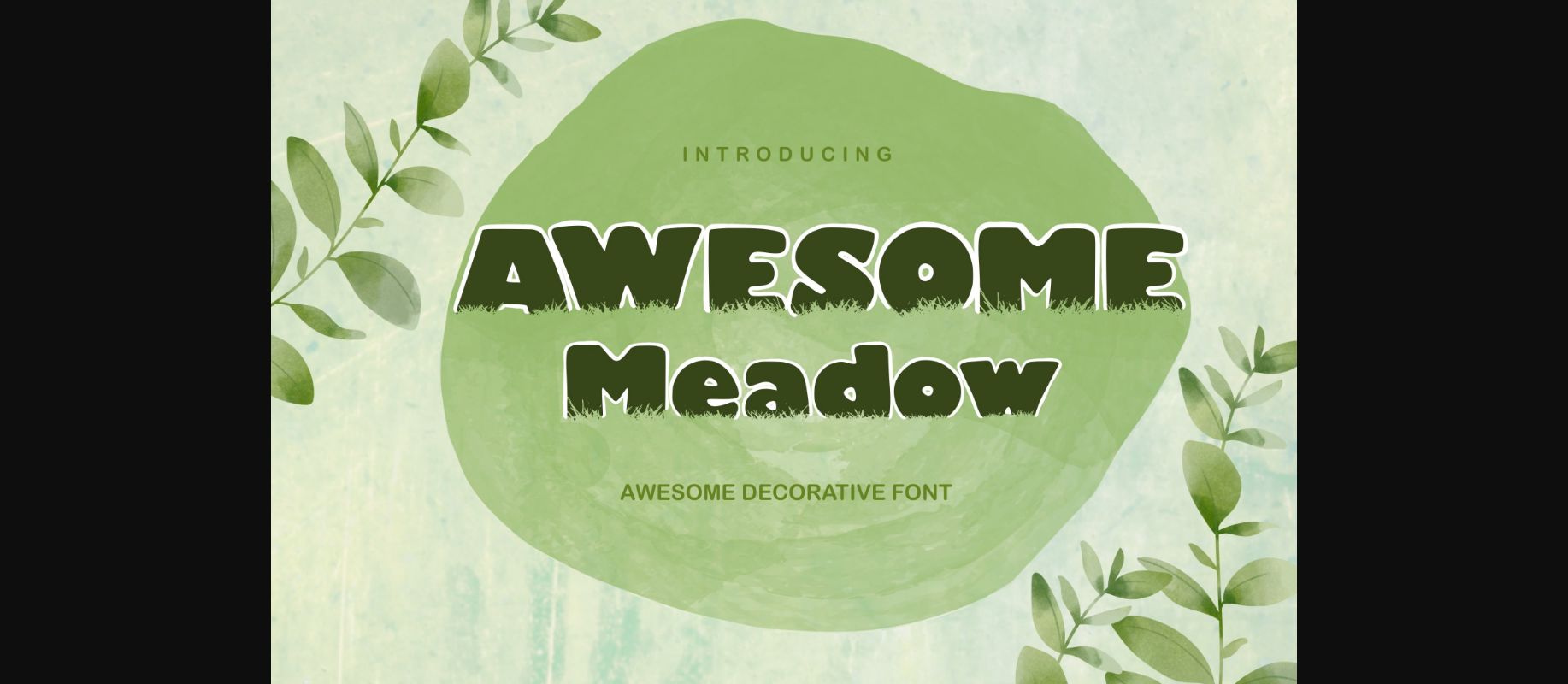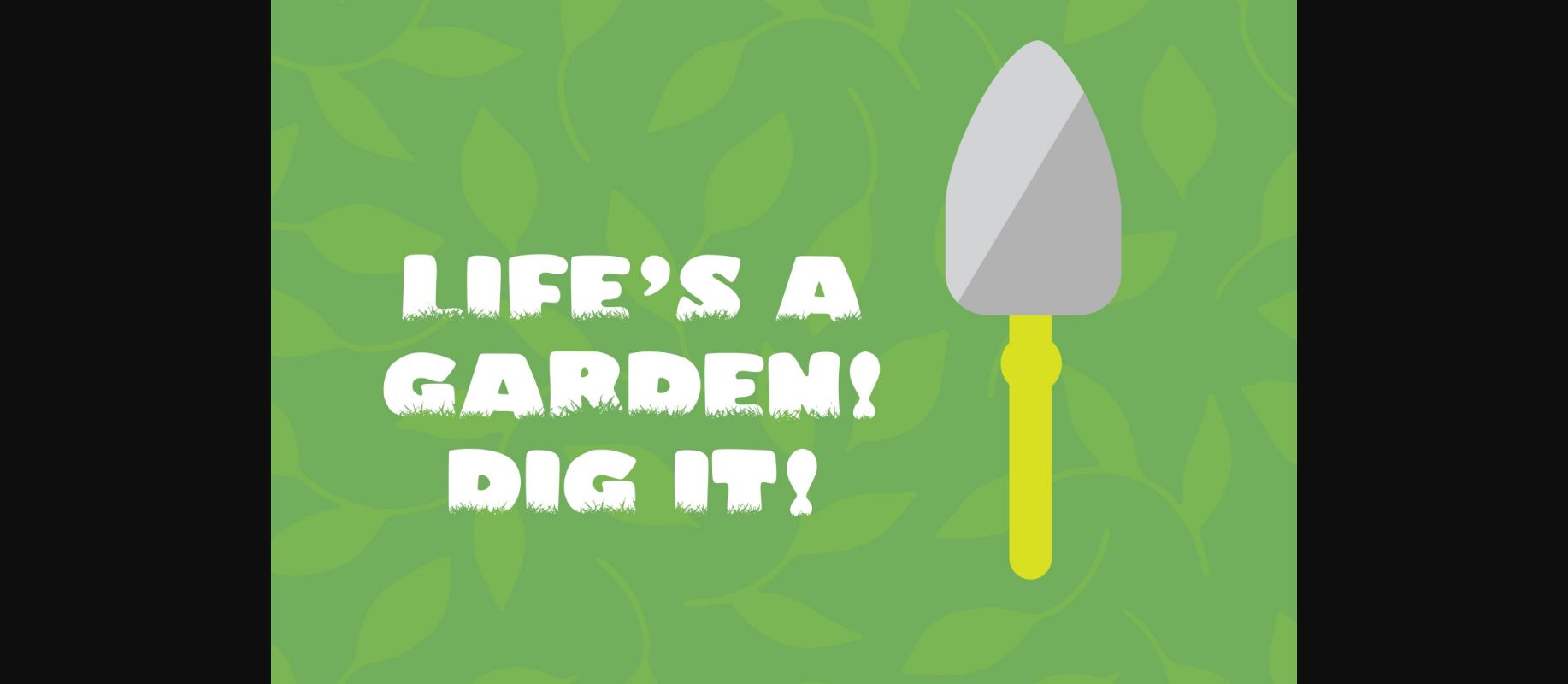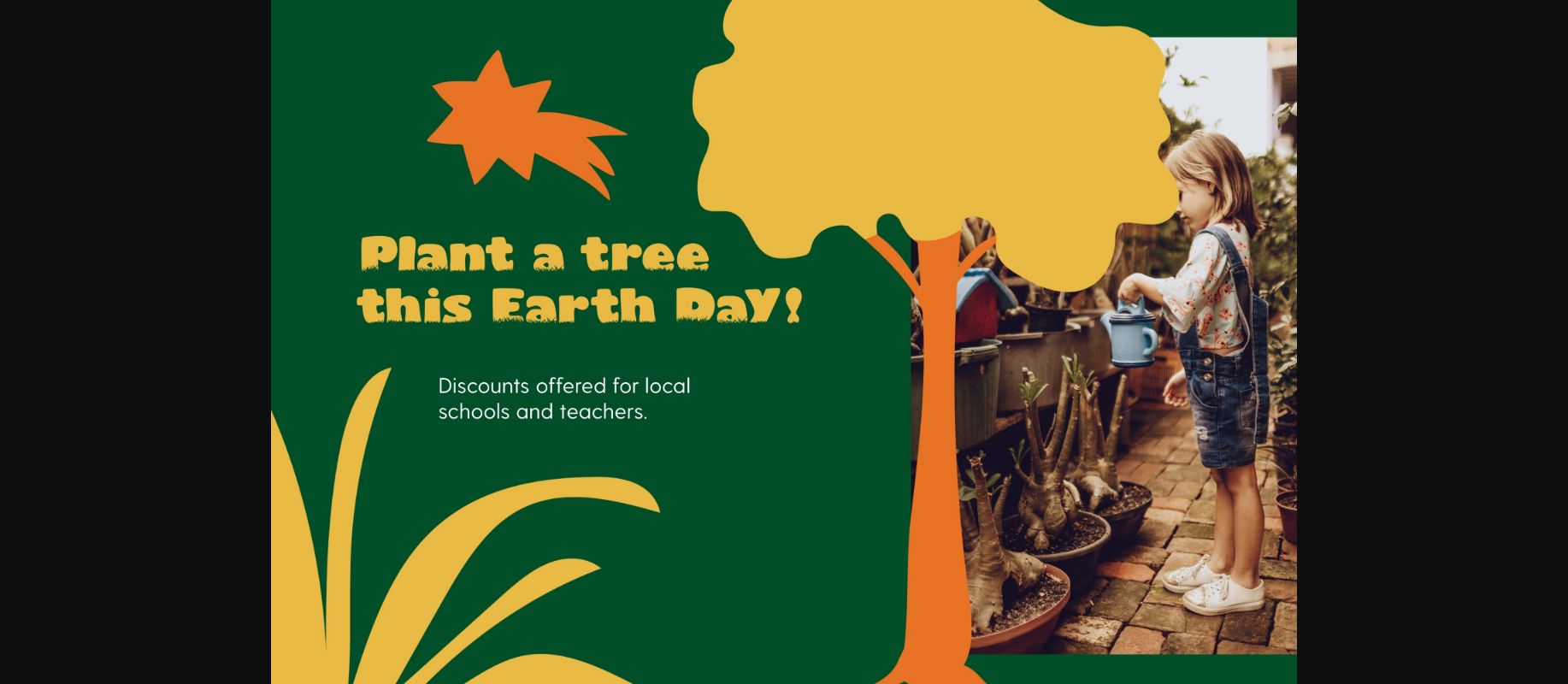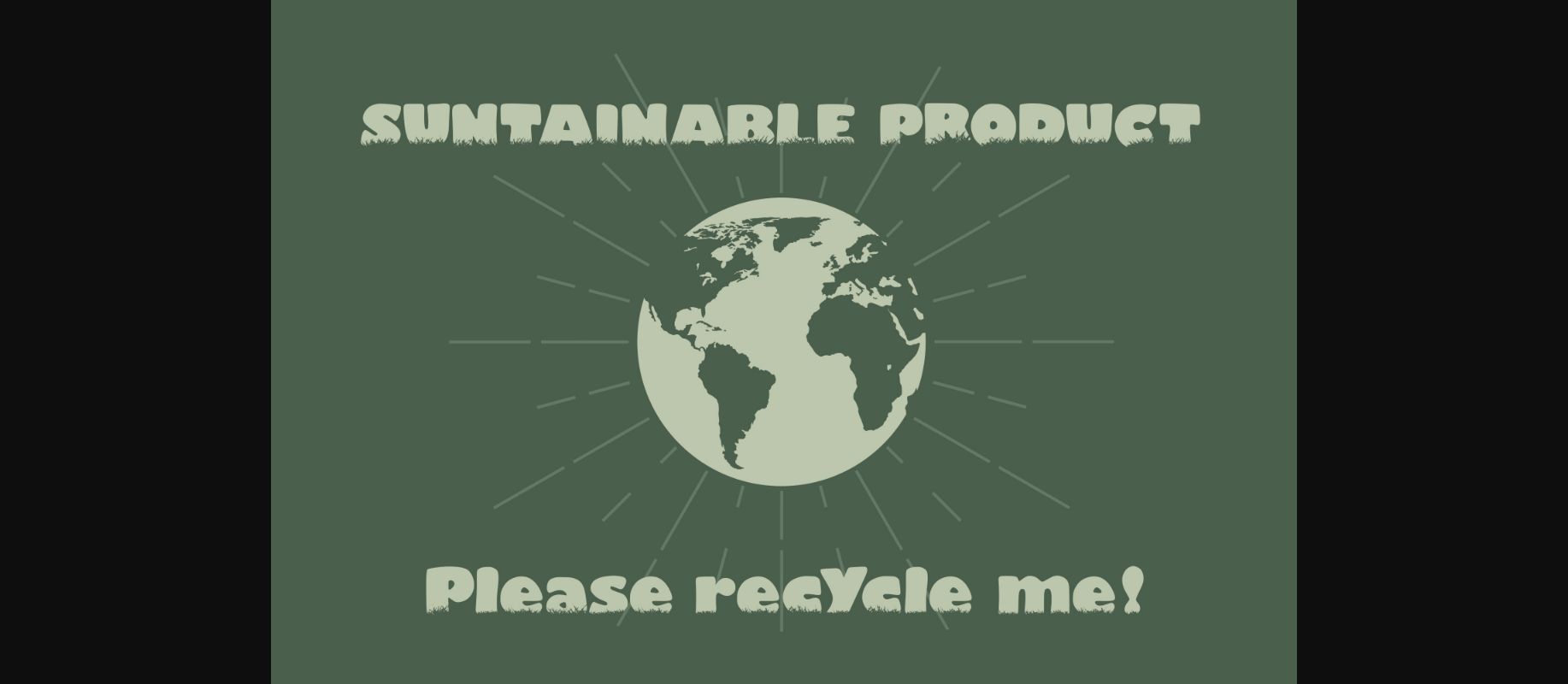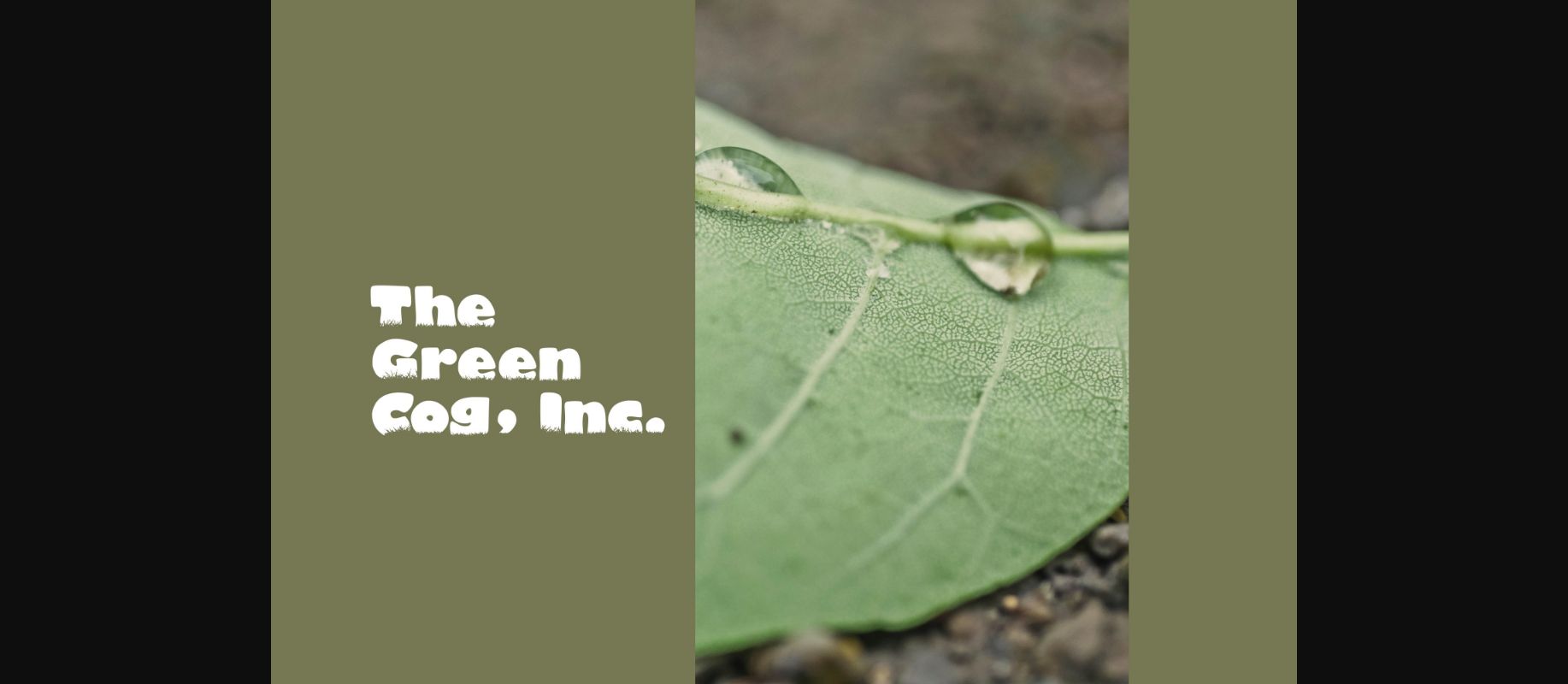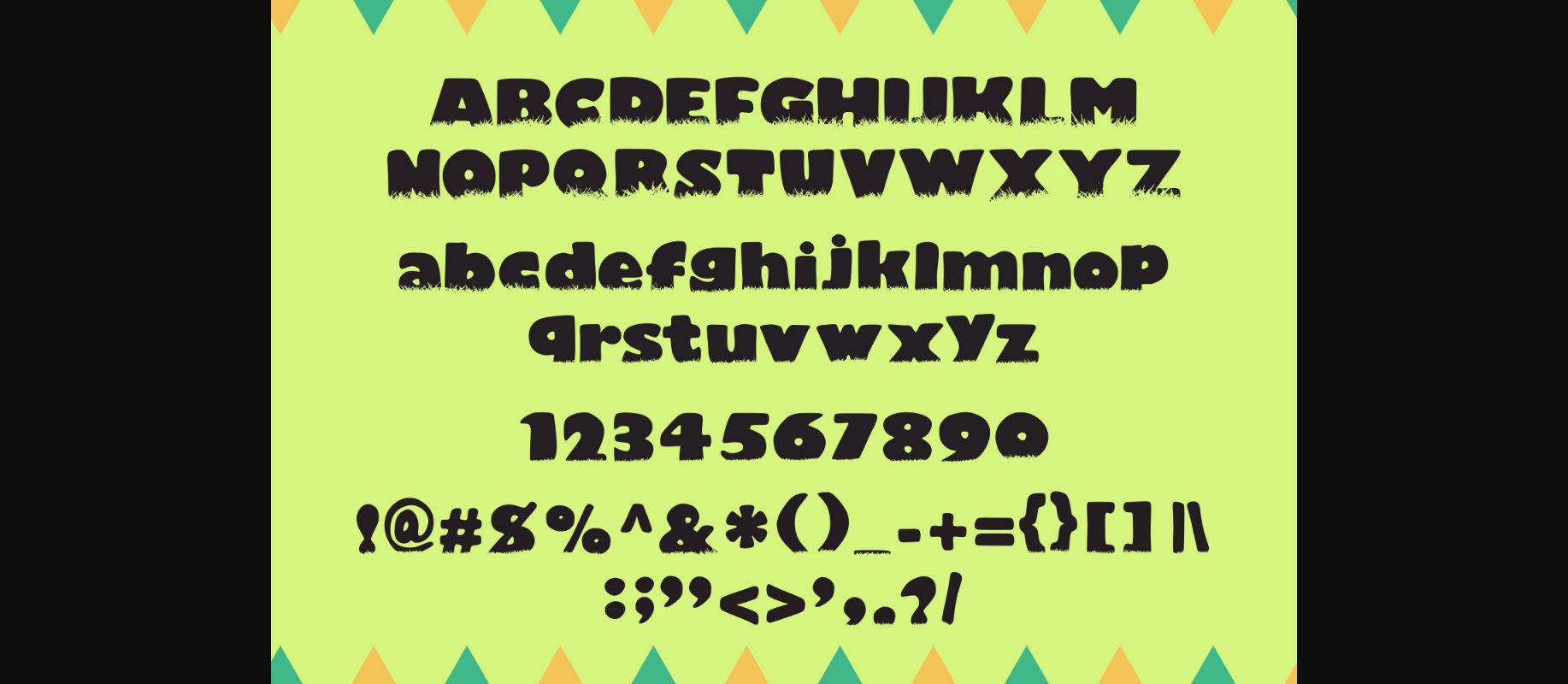
HomeDecorative FontsAwesome Meadow Font Decorative Fonts Awesome Meadow Font FacebookXPinterestWhatsApp 1 of 8 ... Awesome Meadow Font Poster 2... Awesome Meadow Font Poster 3... Awesome Meadow Font Poster 4... Awesome Meadow Font Poster 5... Awesome Meadow Font Poster 6... Awesome Meadow Font Poster 7... Awesome Meadow Font Poster 8... About Awesome Meadow Font Awesome Meadow is a fun and playful decorative font. It embodies playfulness and authenticity and is the perfect choice for any children activity or school project. DOWNLOAD NOW People also explored Simple Signature Font Dark R’lyehain Font Lampion Pelmeshka Roshalia Font Halloween Font Banana Juice Font Brunch Font Halloween Font 312 0 TagsAwesome Meadow Font Previous articleMandala Monogram FontNext articleRevina Monogram Font LEAVE A REPLY Cancel reply Comment: Please enter your comment! Name:* Please enter your name here Email:* You have entered an incorrect email address! Please enter your email address here Website: Save my name, email, and website in this browser for the next time I comment. Personal Use Free Colombia Personal Use Free Read more about this font Fadhista Personal Use Free Read more about this font No Virus Personal Use Free Read more about this font Earwig Factory Personal Use Free Read more about this font BLOG 5 Fonts That Will Dominate Design Trends in 2026 5 Fonts for 2026 That Will Dominate Design Trends Typography plays a critical role in visual communication, and as we look ahead to 2026, it’s... Transform Your Website: Elevate Your Typography with 7 Best Web Font Generators Exploring Font Trends Where to Buy American Fonts Online in 2024